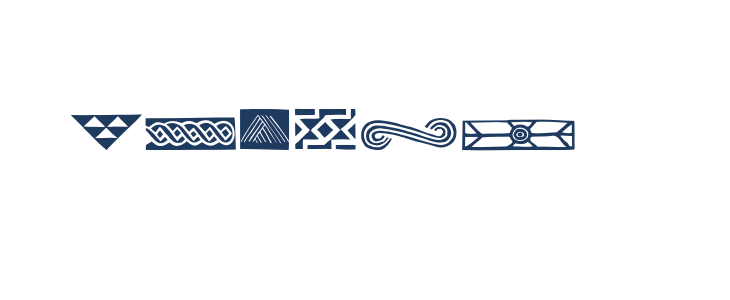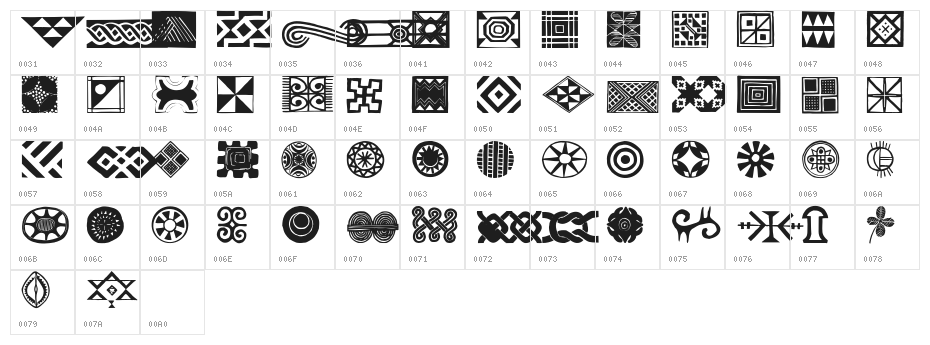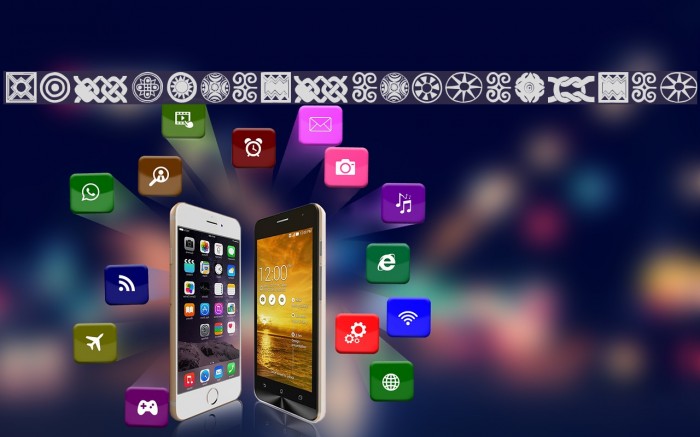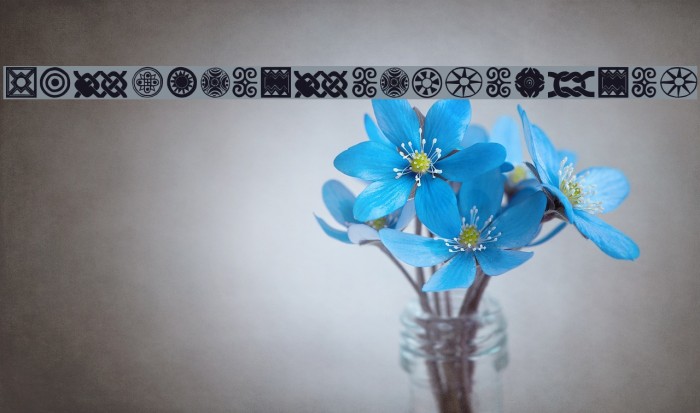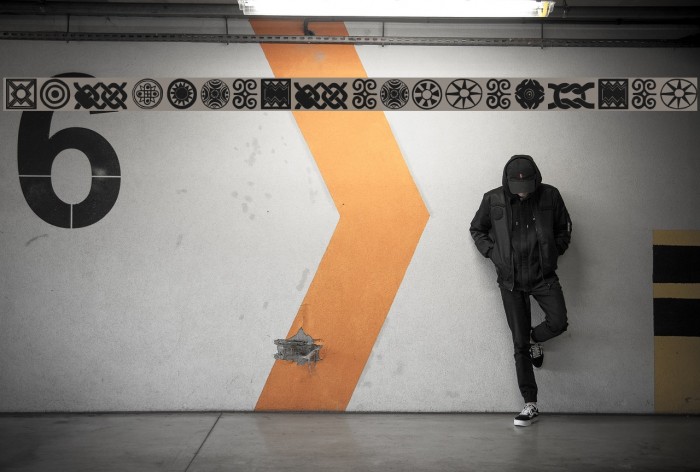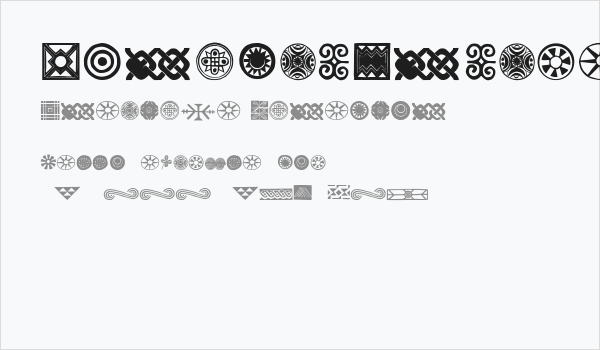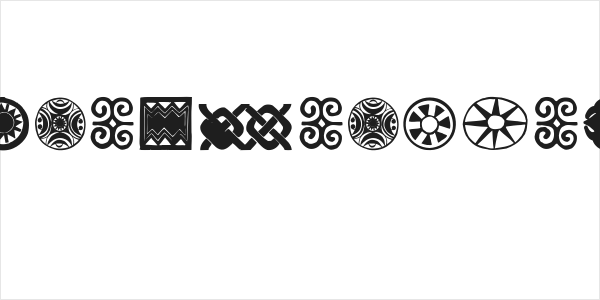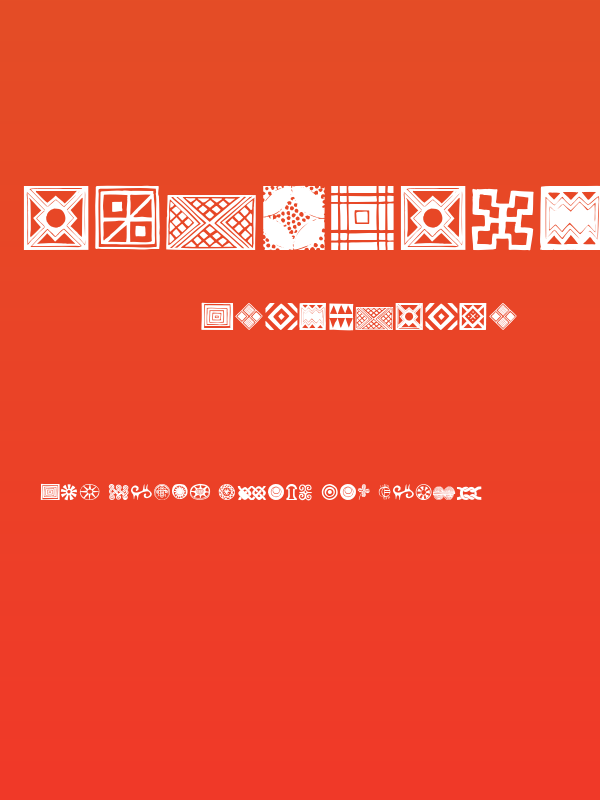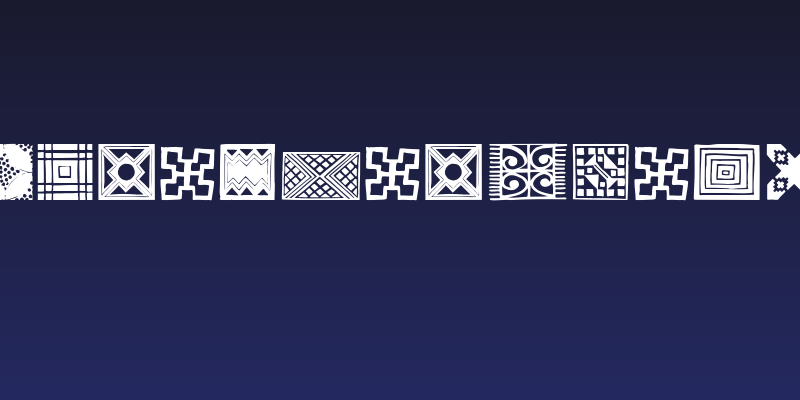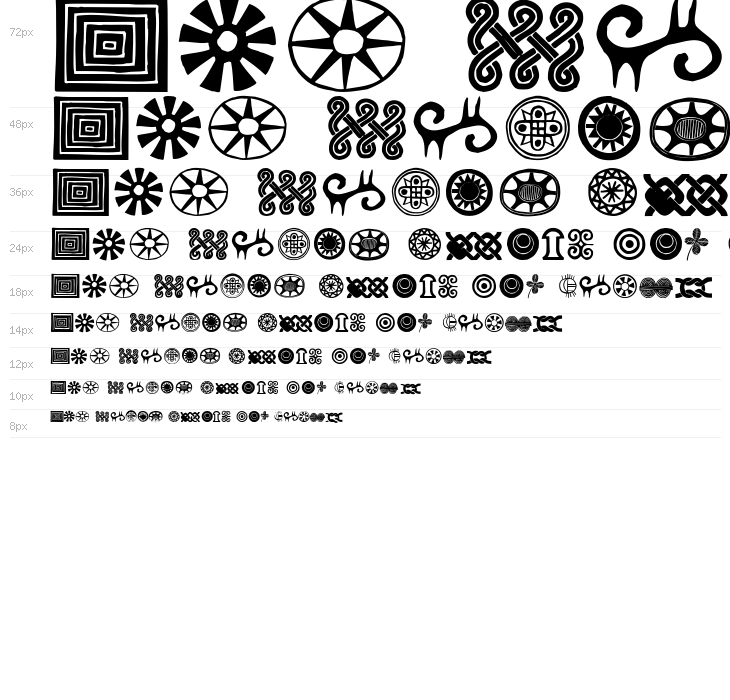
AfricanOrnamentsOne Font
AfricanOrnamentsOne Description
This collection features a series of intricate African-inspired ornamental designs. Each symbol is unique, showcasing a blend of geometric patterns and cultural motifs. The designs range from circular patterns with radial symmetry to complex interwoven shapes, reflecting a rich heritage and artistic expression. The bold, black lines and shapes are striking, making each ornament stand out distinctly. These designs are perfect for adding a touch of cultural elegance and historical depth to any project. The variety in shapes and patterns offers versatility, allowing them to be used in a multitude of creative applications.
| Use Case | Logos, Decorative elements, Cultural projects |
| Proposed Projects | Ideal for cultural art projects, textile designs, logo creation, and decorative elements in digital and print media. |